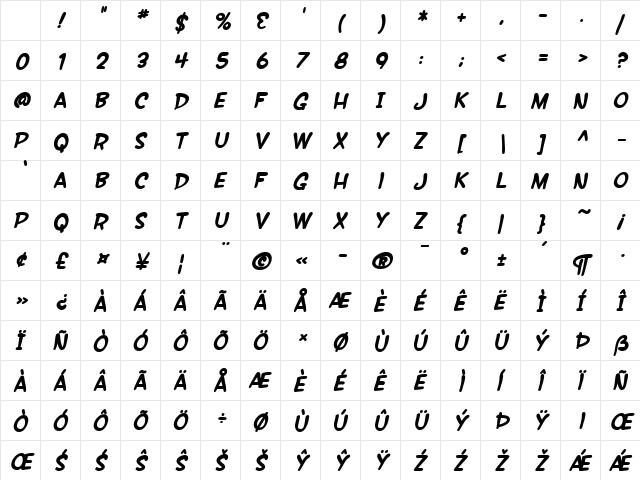
Complete SF Wonder Comic Bold Italic glyph index. Displaying only characters natively supported by SF Wonder Comic Bold Italic font.
SF Wonder Comic has an approachable, lighthearted character - its loose, expressive forms are well-suited to children's content, casual branding, and fun-first design. The slanted form adds forward momentum and visual energy.
Font Pairing: Pairs well with a rounded or humanist sans for body copy, maintaining the friendly tone without relying on SF Wonder Comic to carry extended reading.
Pro Tip: Use SF Wonder Comic at larger display sizes where its expressive character can land. Pair with a clean, simple sans for body copy to maintain readability.